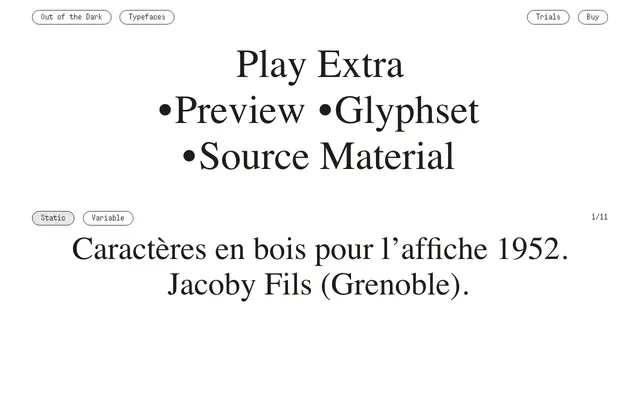
Play Extra
A single-weight display typeface drawn from 1952 French wood type specimens by Jacoby Fils of Grenoble, available in static and variable formats.
Rooted in mid-century French wood poster type from the Jacoby Fils foundry in Grenoble, Play Extra arrives as a single bold style with a variable font counterpart. The source material dates to 1952, lending the design a raw, physical weight typical of large-scale wooden letterforms. One style, one purpose: large-scale setting where the blunt energy of wood type is the point.
The source material reference to 1952 wooden poster characters (caractères en bois pour l'affiche) from Jacoby Fils in Grenoble places this firmly in the wood type display tradition, with a single bold style and variable font indicating a poster-oriented display typeface.